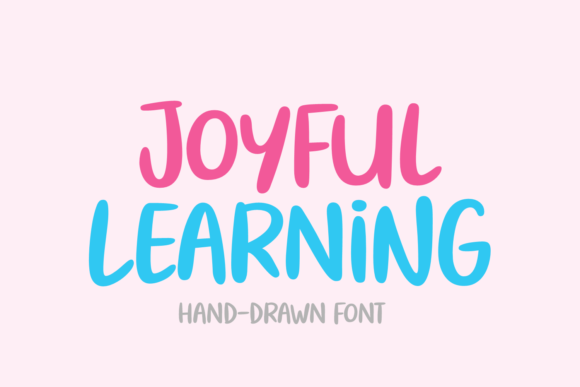
Introducing Joyful Learning Font, a beautiful script font family that will add a touch of elegance to your book covers. With its relaxed and handwritten style, this font is perfect for creating charming and inviting designs.
Crafted by the talented Situjuh, Joyful Learning Font is designed to bring your informal projects to new heights. Its simple and easy-to-read style makes it ideal for a wide range of applications, from book covers and posters to social media posts and website designs.
Whether you're a seasoned designer or just starting out, Joyful Learning Font is the perfect choice for adding a personal touch to your creative projects. Its versatility and charm will make it a fast favorite in your font collection.
Here are just a few of the many reasons why you'll love Joyful Learning Font:
* Its relaxed and handwritten style adds a touch of charm and personality to your designs.
* Its versatility makes it perfect for a wide range of applications, from book covers and posters to social media posts and website designs.
* Its easy-to-read style ensures that your message will be seen and understood by all.